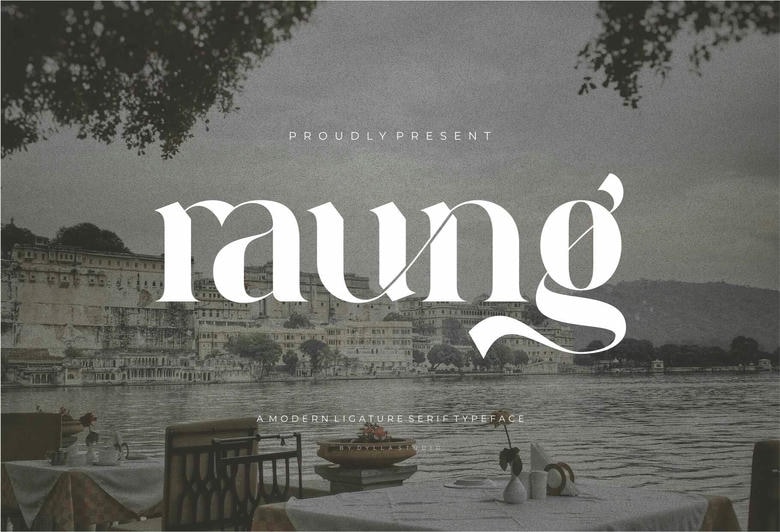
Raung Font
Raung Serif Font is inspired by the famous minimalist logo perfect for the purposes of designing templates, brochures, videos, advertising branding, logos, invitation, layout design, elegant crafting, beauty design, and more.
Raung Serif Font